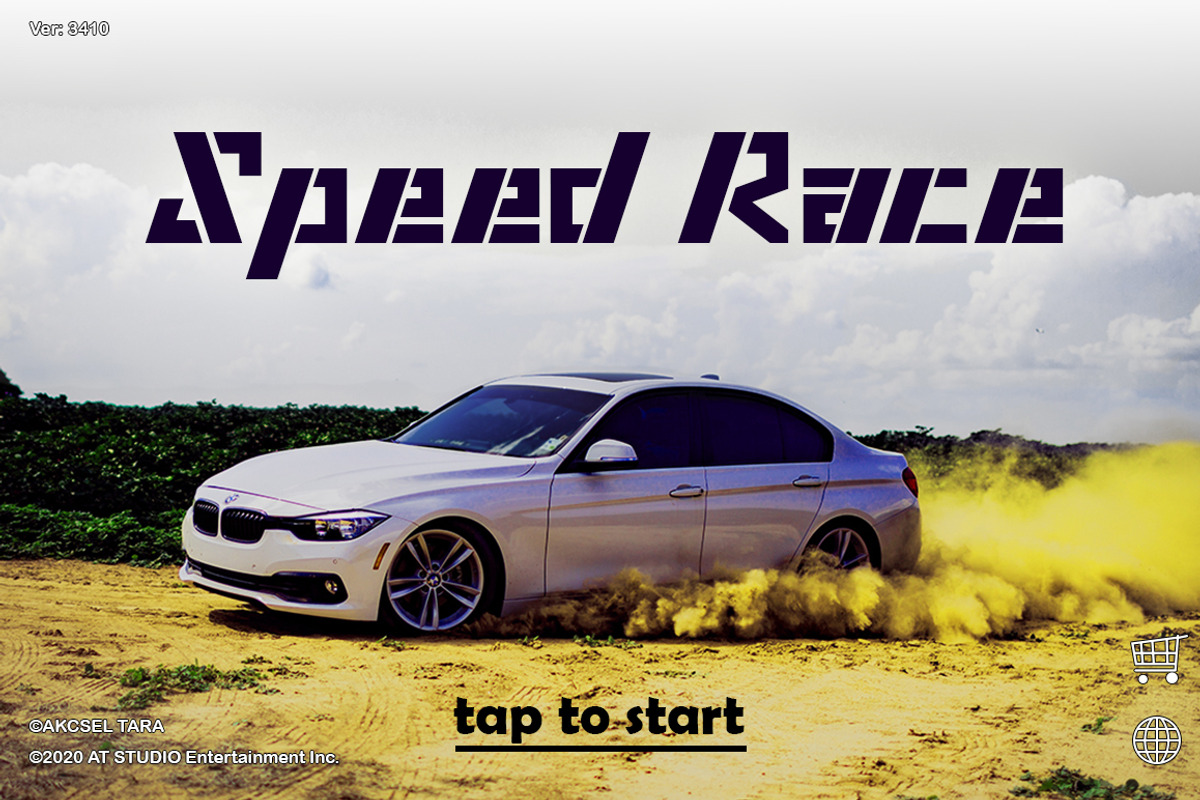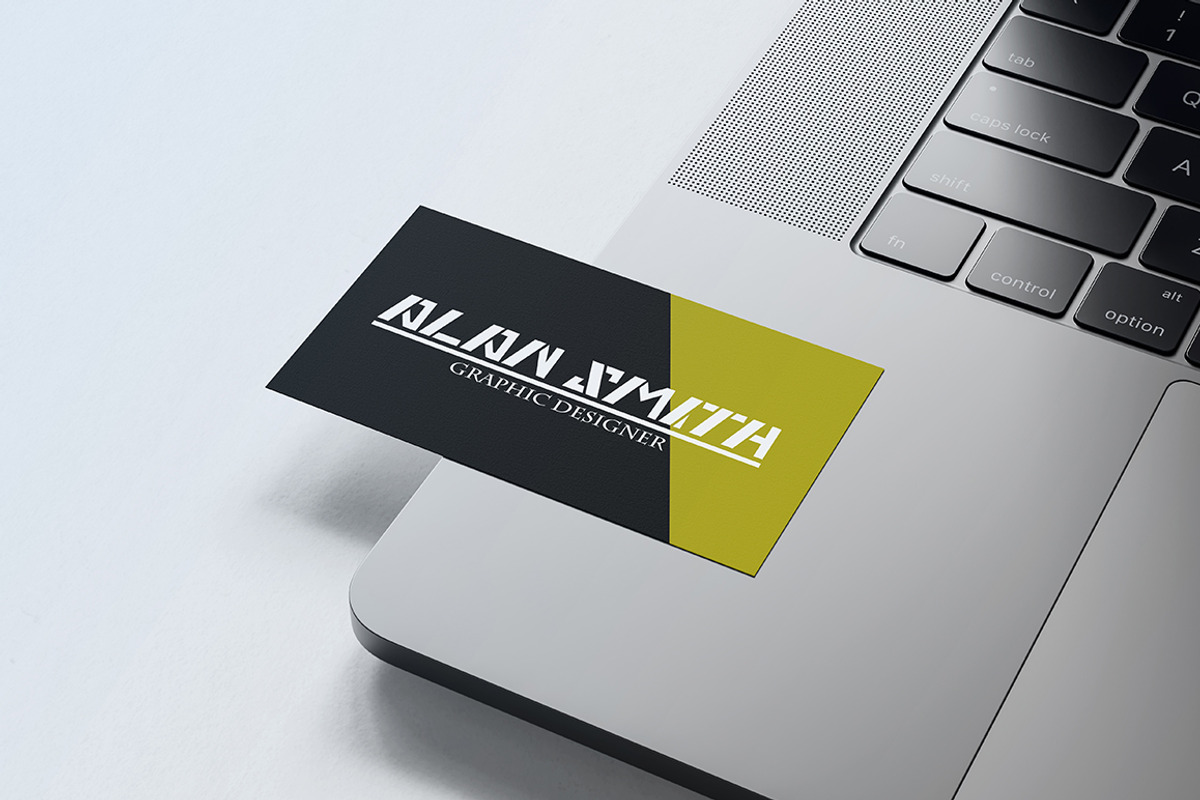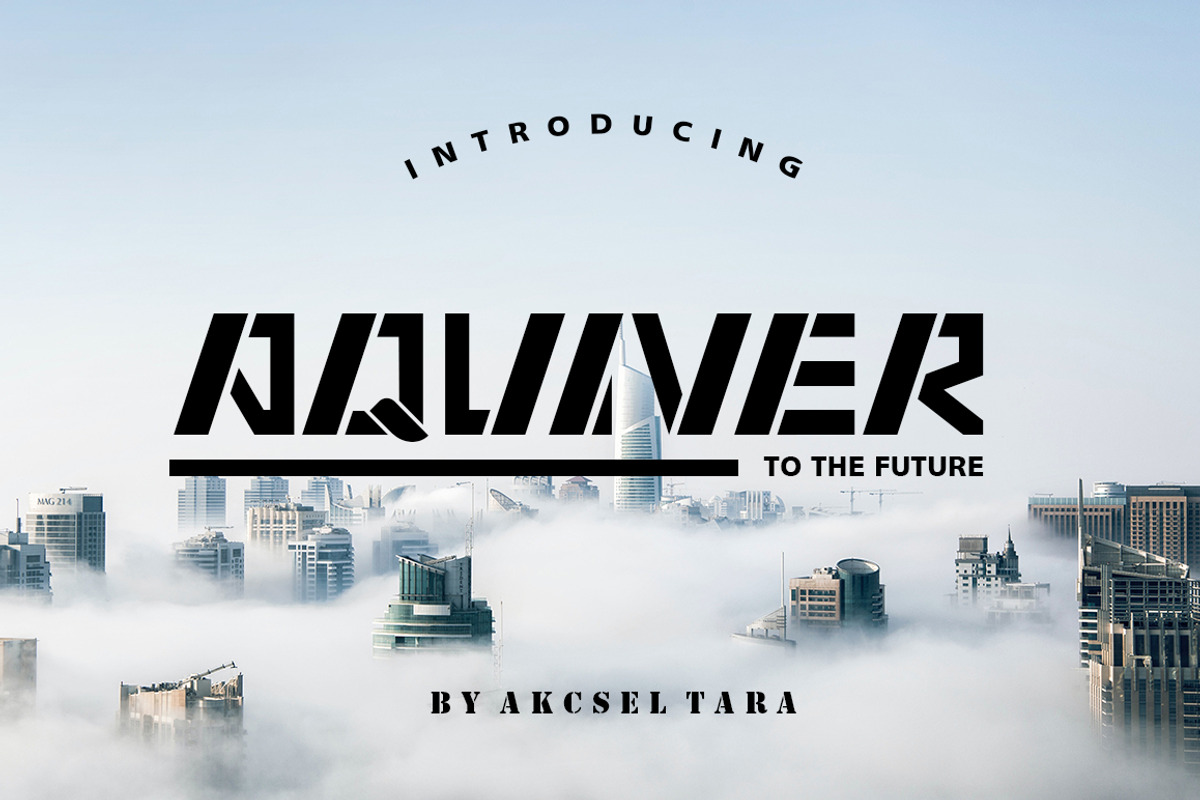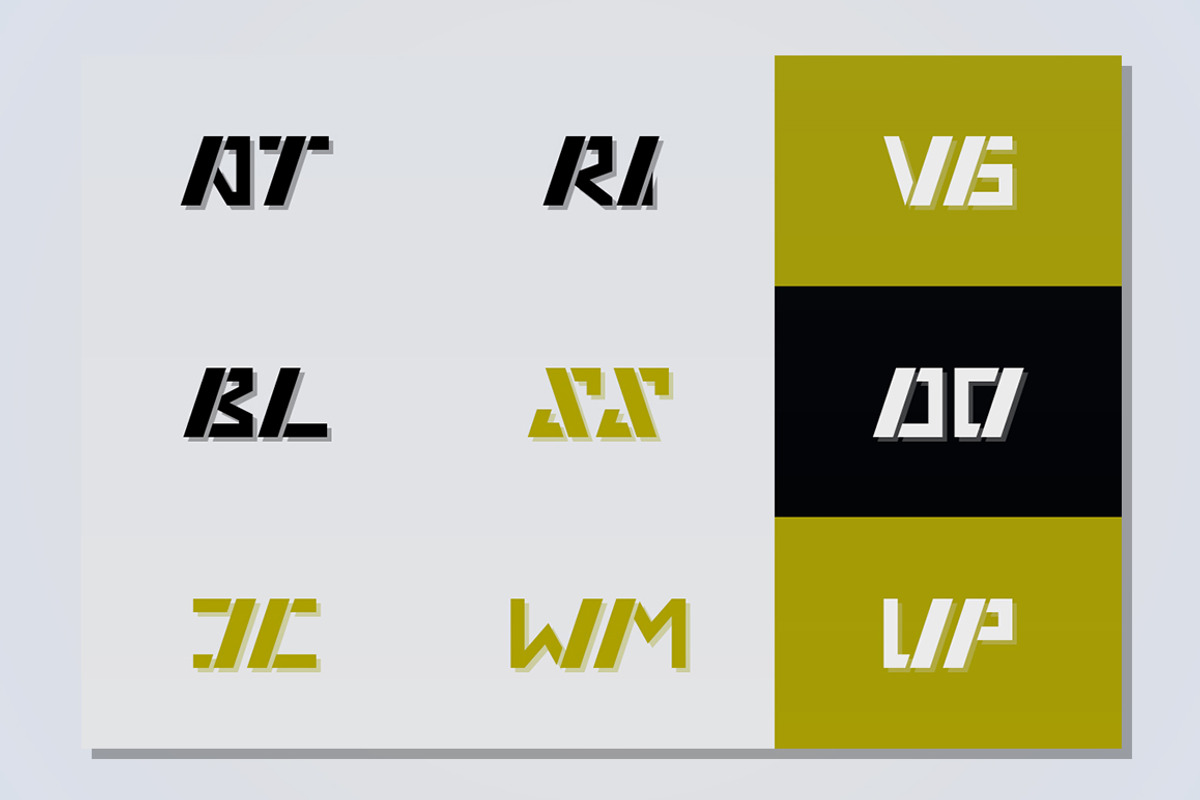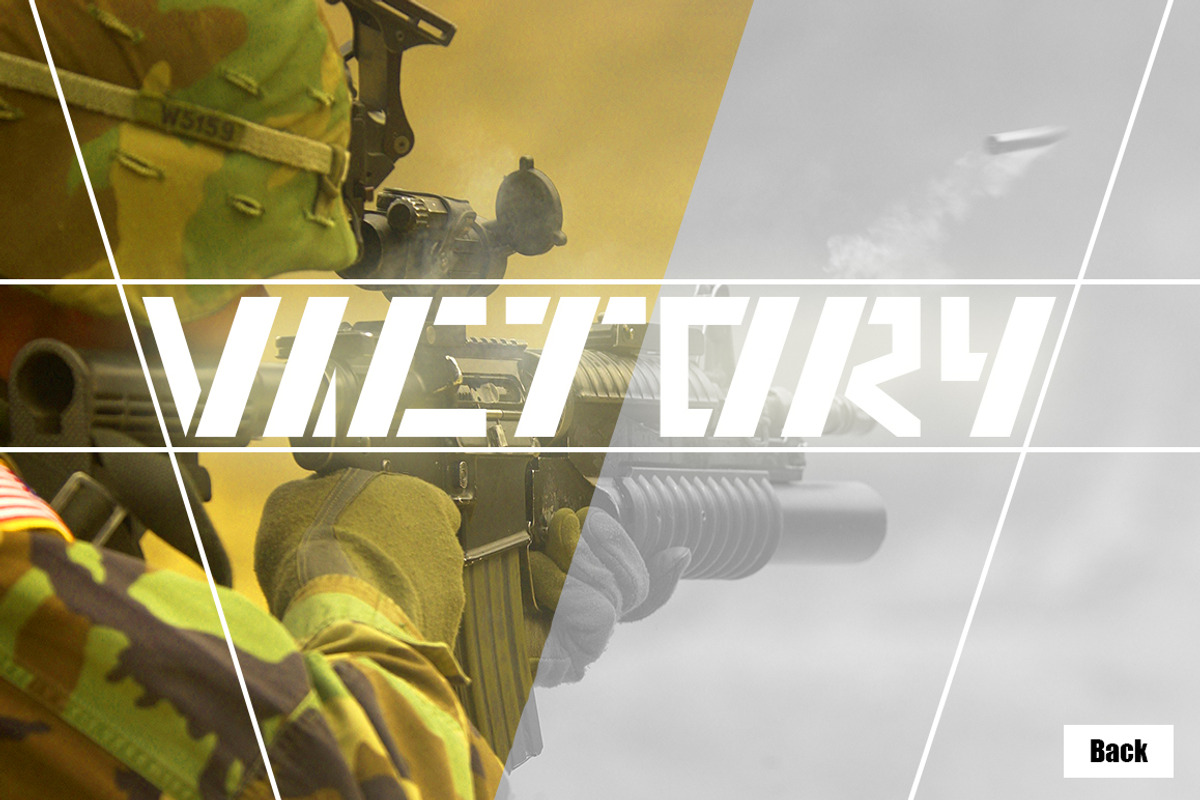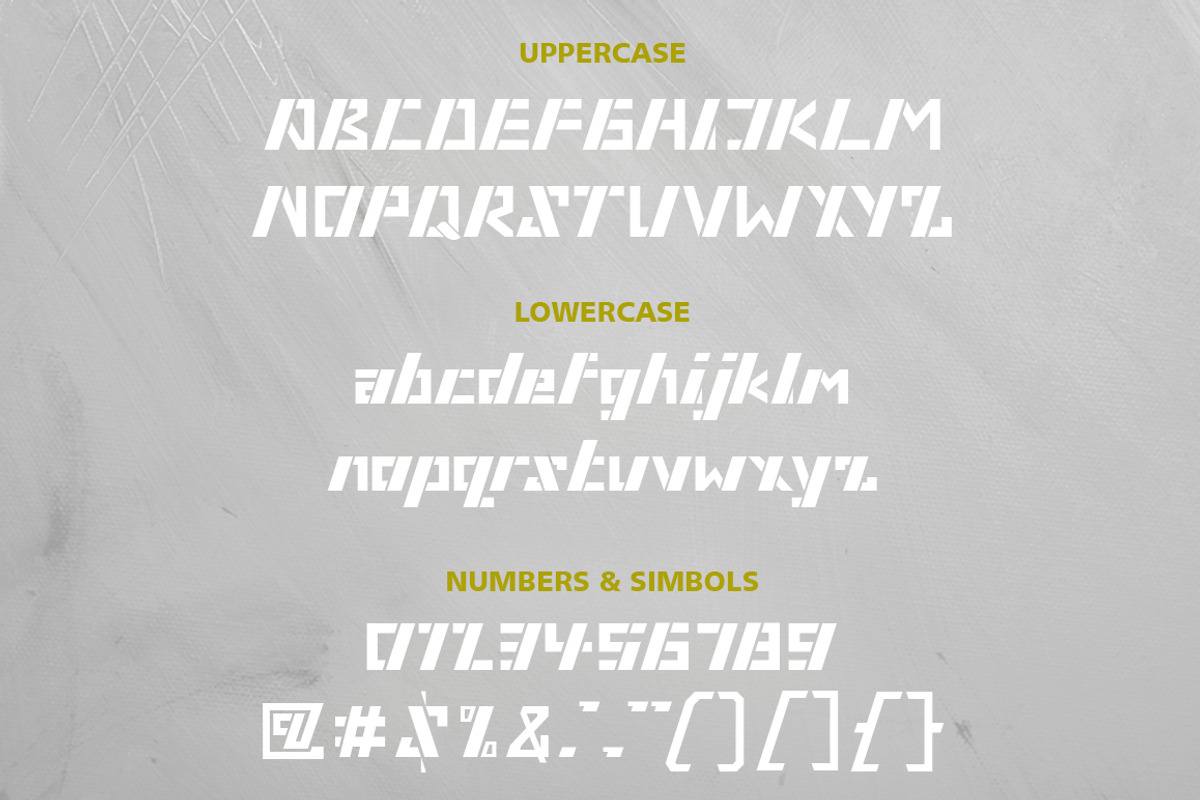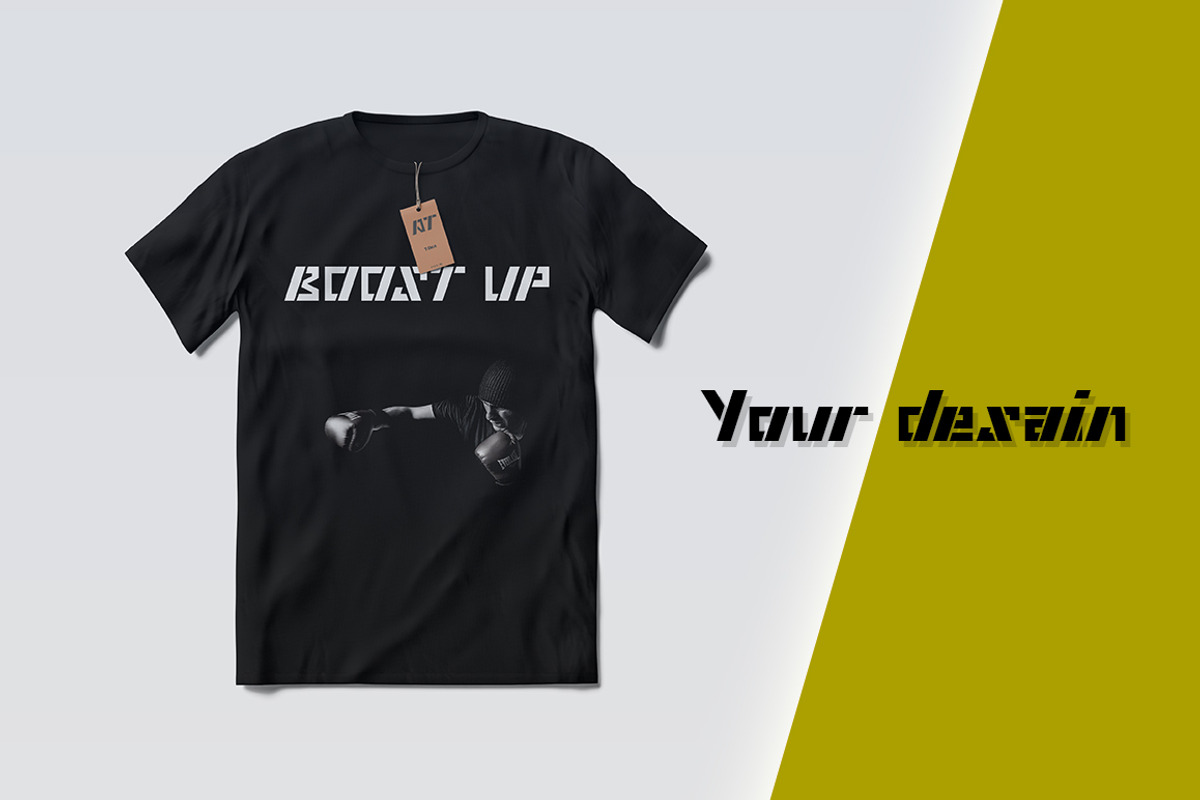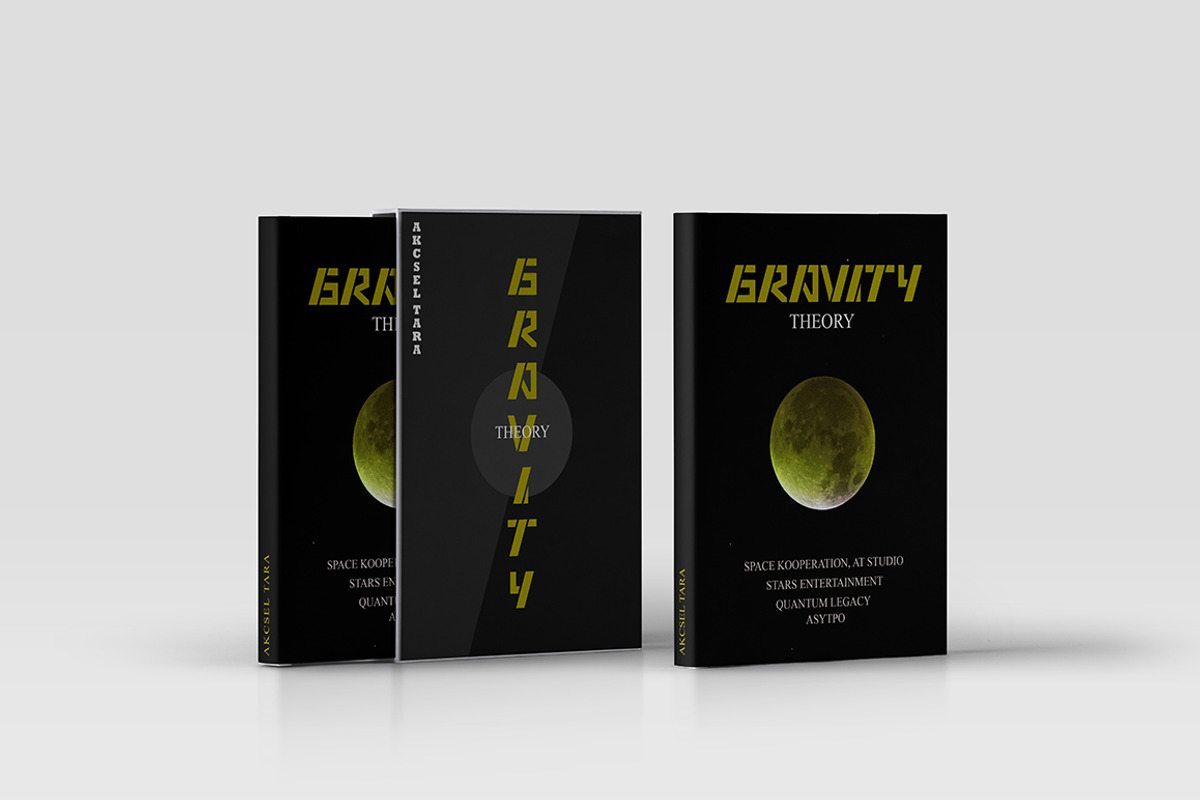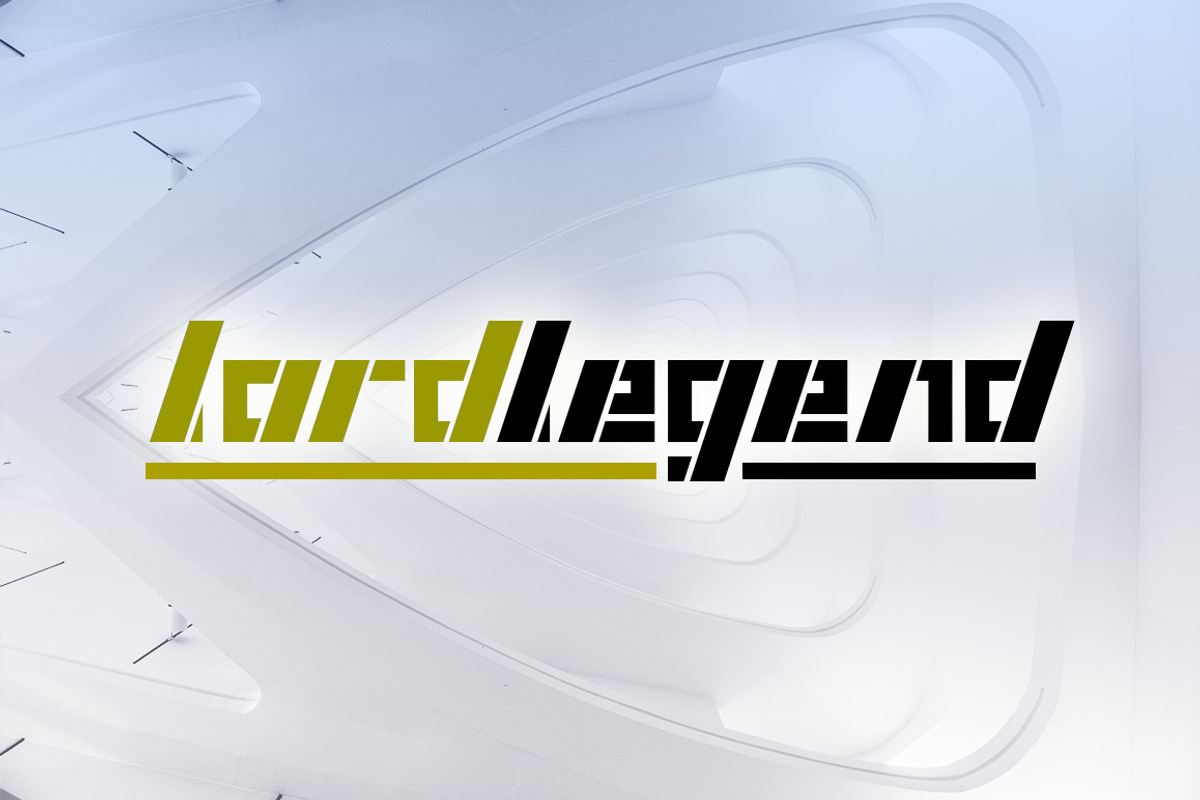
AQUIVER - Modern Font
AQUIVER is a modern font with a unique and beautiful outline shape and dominated by vertical and diagonal lines for each letter.
AQUIVER is perfect for logos, game application, name card, brand identity, book titles, t-shirt design, any project, and much more.
AQUIVER includes all upper and lower case standard character, punctuation, and numerals.
- Fonts include multilingual support